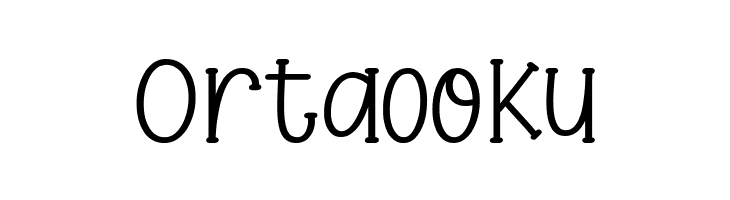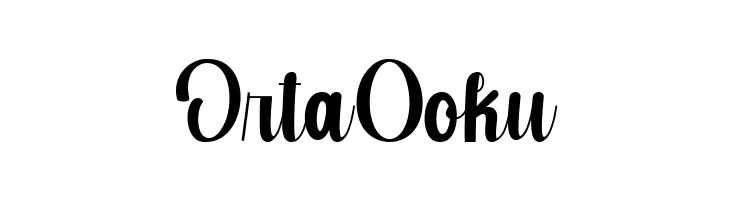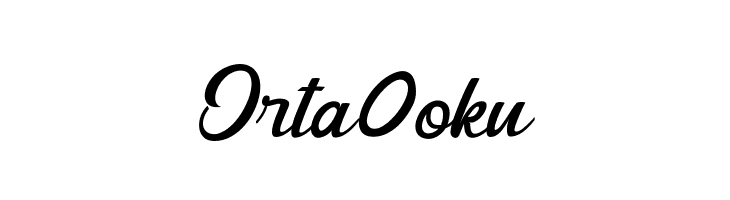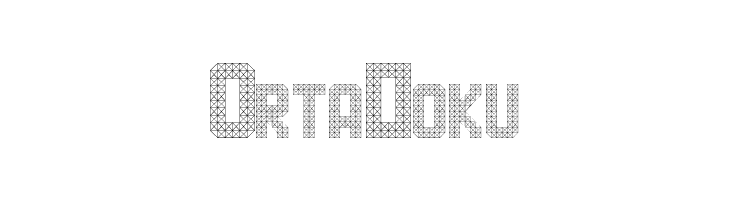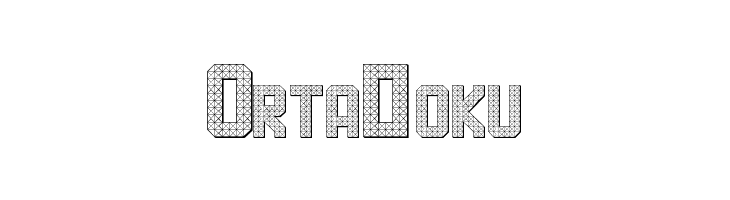
A playful, handwritten font with rounded, whimsical characters.
A bold, geometric font with intricate triangular patterns.
A bold, geometric font with sharp, angular letterforms.
A bold, geometric font with a triangular mesh pattern, ideal for decorative use.
A dynamic and elegant script font with fluid, cursive letterforms.
A bold, expressive script font with flowing, cursive letterforms and high contrast strokes.
A classic, elegant script font with flowing cursive letterforms.